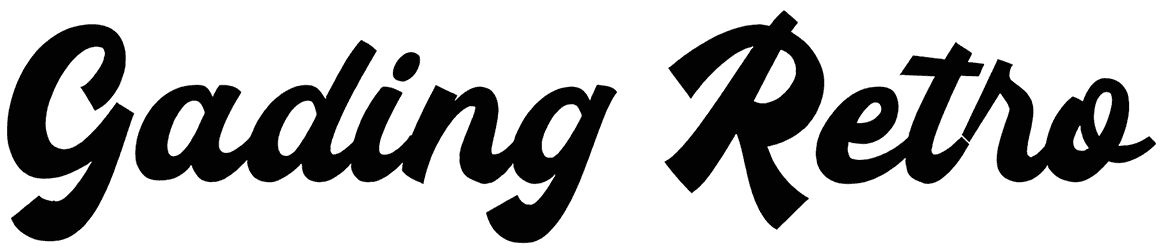
Gading Retro Font
Gading Retro is a perfect blend of vintage and elegance, which has stretched edges, thus bringing a sense of personalization, classic, nostalgia, professionalism, and dynamism to the artwork.
This old school font can take your creative content, such as flyers, menus, street posters, digital banners, and wood engravings, to an unimaginable level of quality. So we strongly recommend you try this 80s script font and make the best outcome out of it.